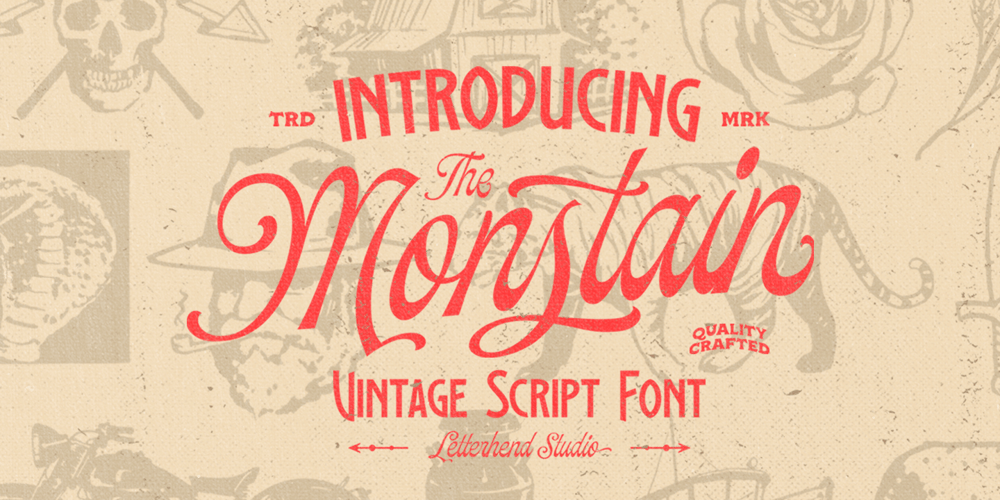
Monstain Font Family was designed by Hendry Juanda and published by Letterhend. Monstain contains 1 styles and family package options. Introducing, The Monstain – a script with a touch of vintage look and feel. You will also get several detailed hand drawn objects ready to use. This type of font perfectly made to be applied especially in logo, headline, signage and the other various formal forms such as invitations, labels, logos, magazines, books, greeting / wedding cards, packaging, fashion, make up, stationery, novels, labels or any type of advertising purpose.Features : uppercase & lowercase numbers and punctuation multilingual alternates / swashes and ligatures PUA encoded hand drawn objects We highly recommend using a program that supports OpenType features and Glyphs panels like many of Adobe apps and Corel Draw, so you can see and access all Glyph variations.